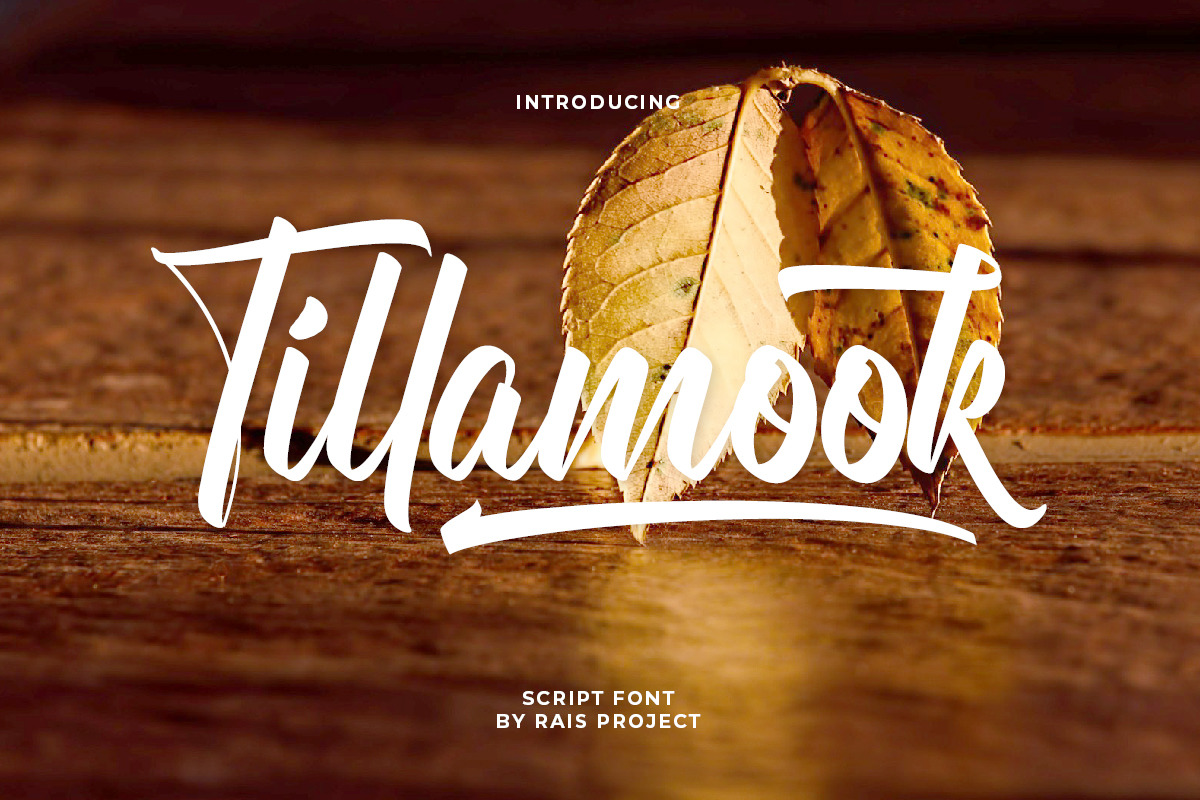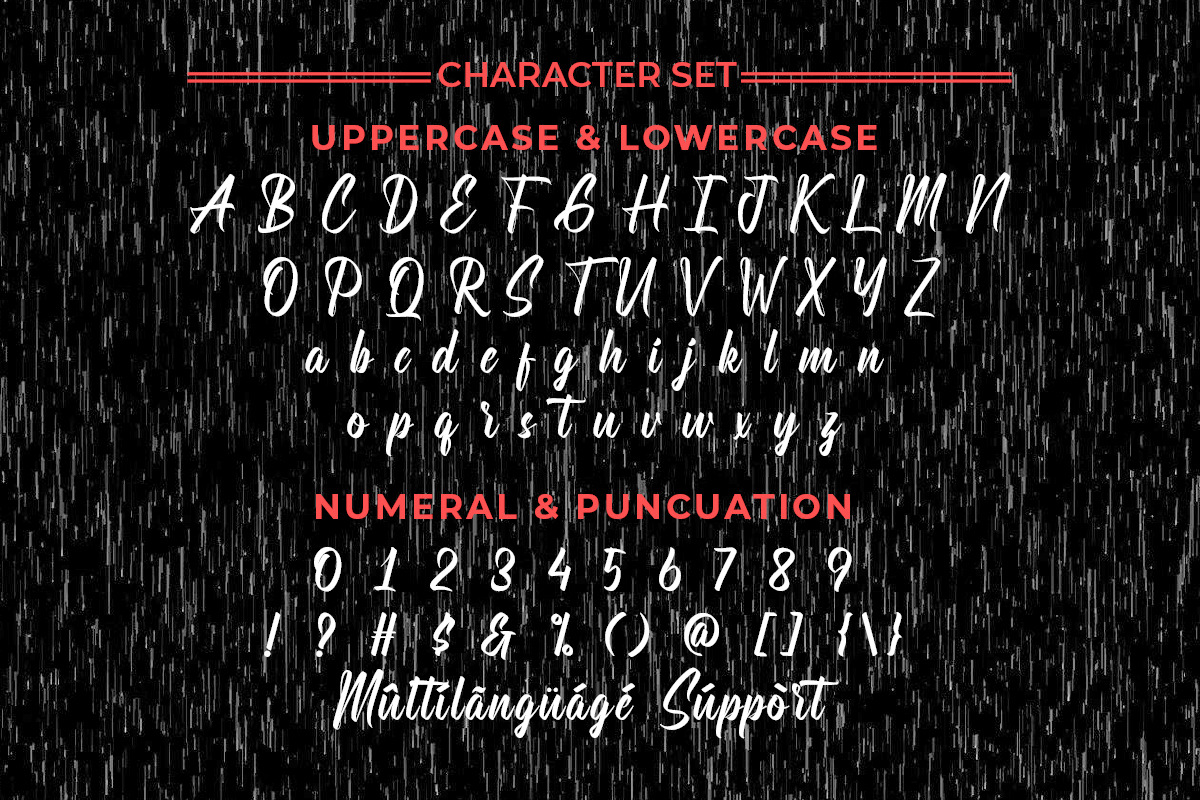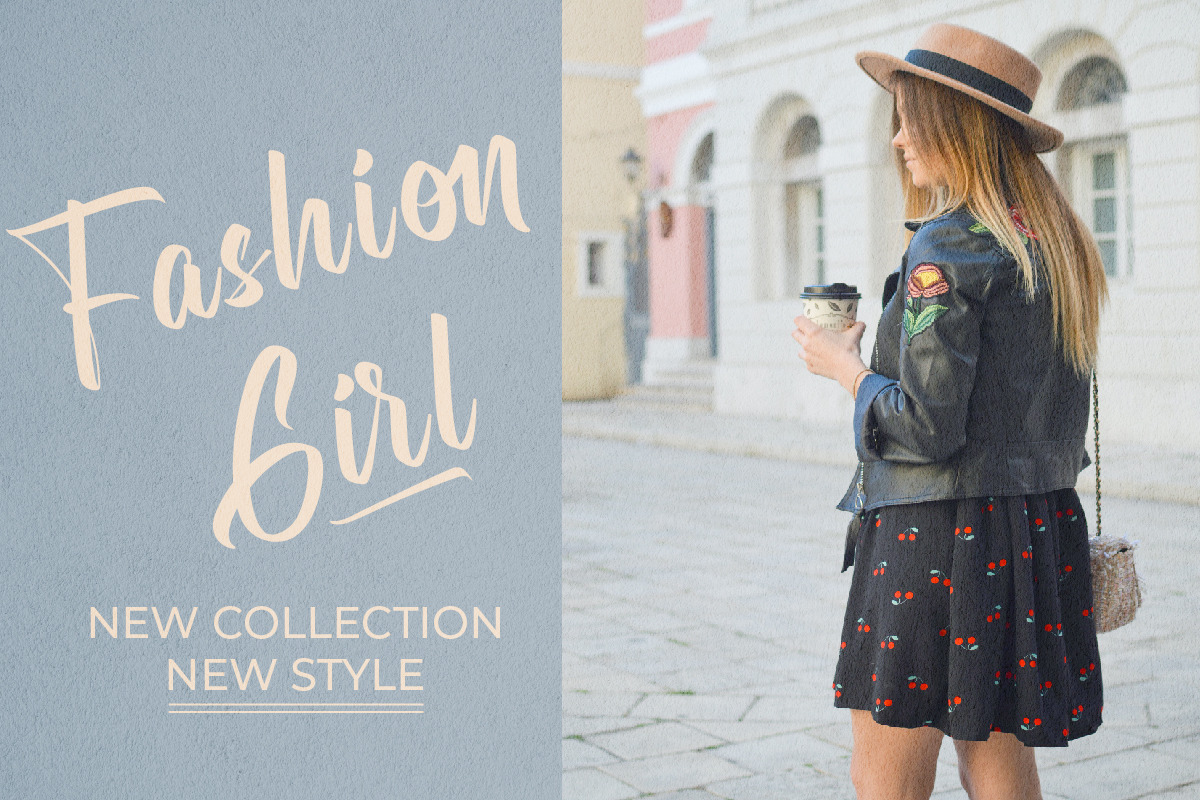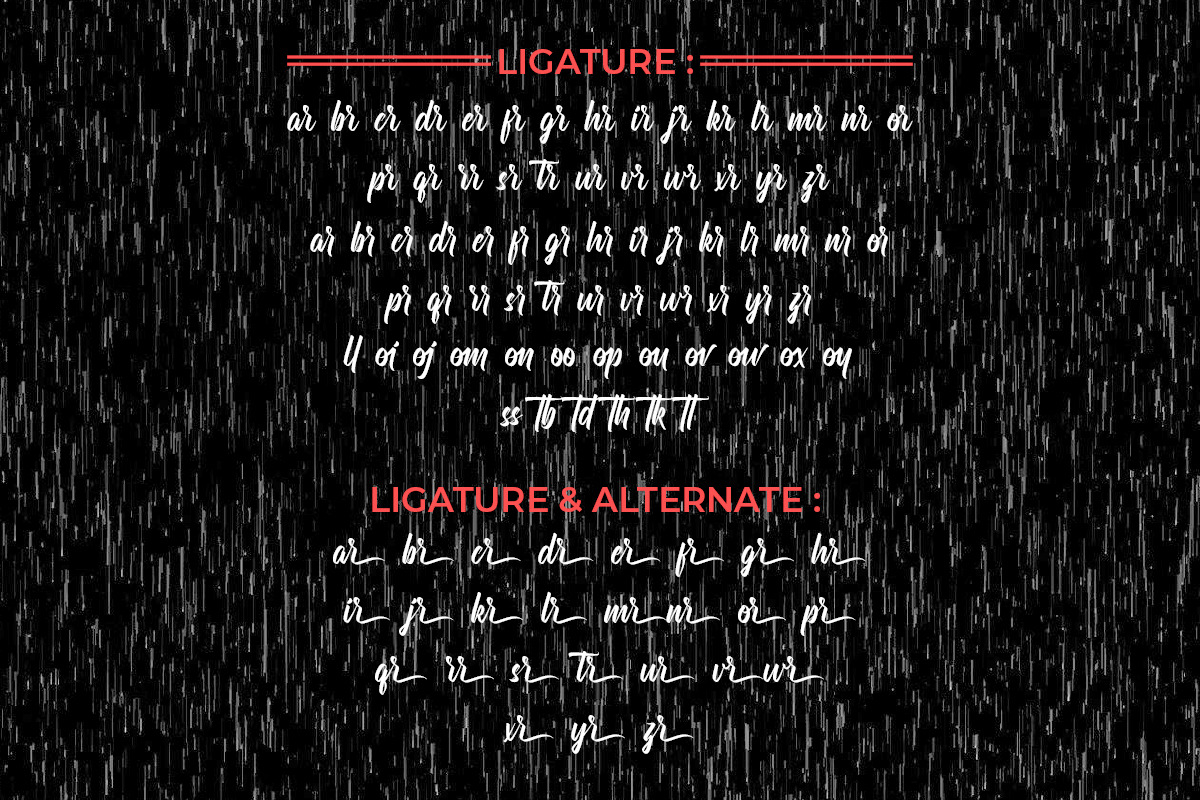
Tillamook Brush Script Font
Tillamook is a beautiful brush font with strong character style. The font was handcrafted for any your special projects including : headlines, promotion, events, branding, advertising, magazine, signage, invitation, stationery, social media posts, label, or and any projects that need unique strong style. The theme/industries of this font is Vintage, Horror, Movie, Game, Magazine, Music, Video, Sports, Racing etc